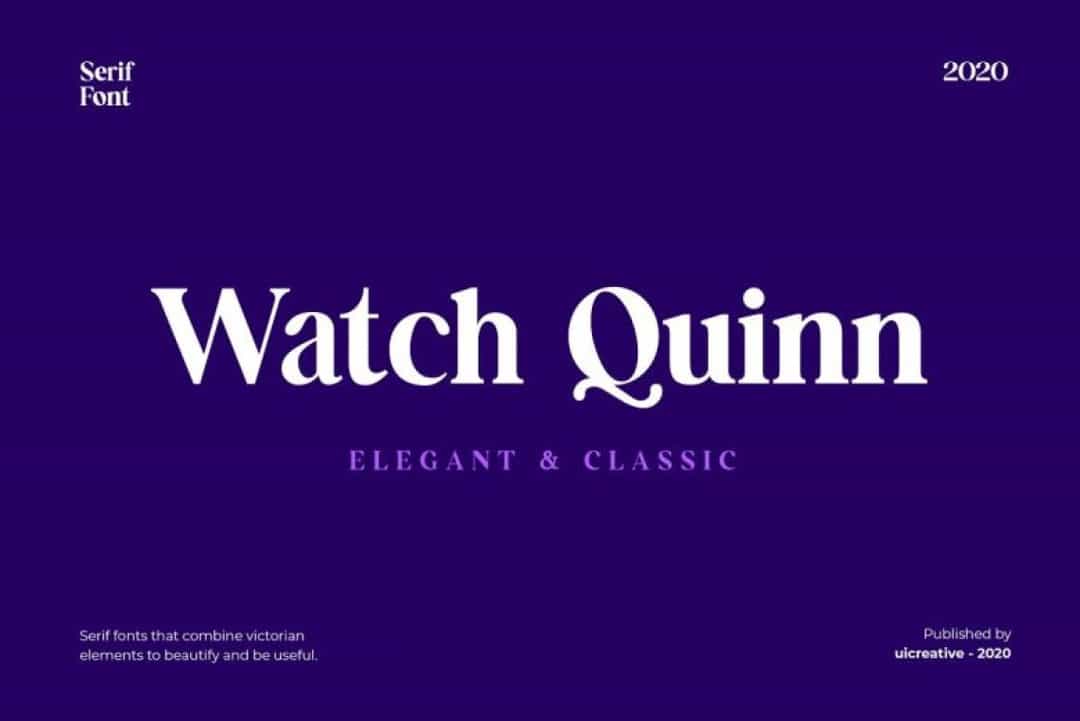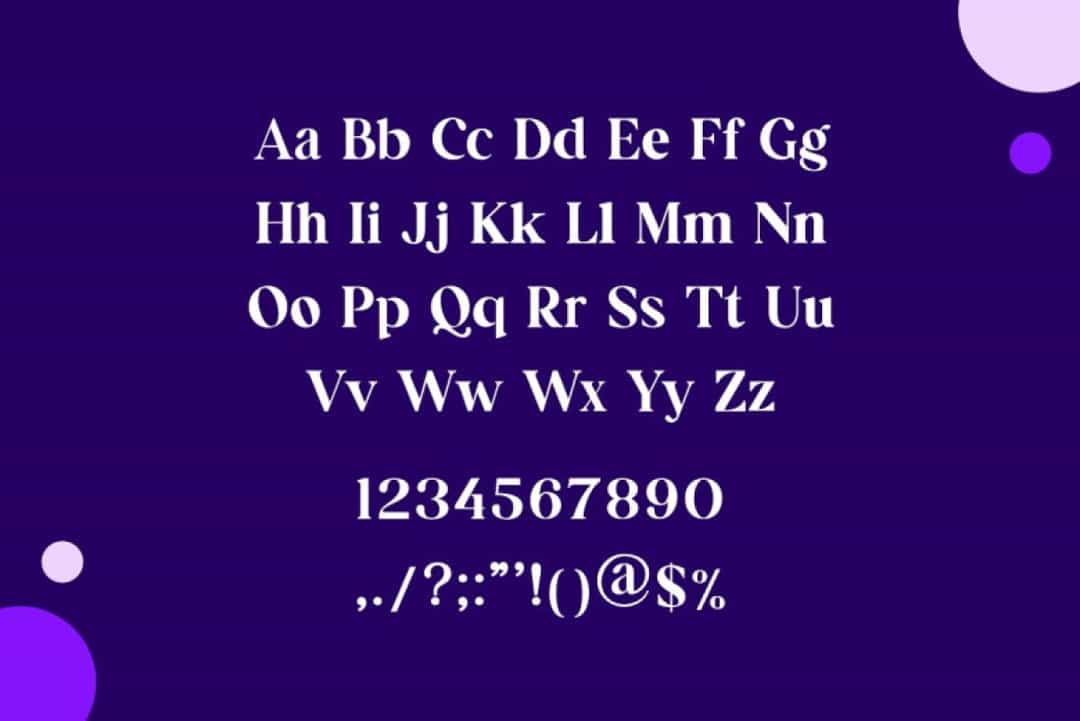
Watch Quinn is an elegant, classy, and contemporary serif typeface perfect for various projects; such as logos, stationery, signature wedding invitations, typography quotes from magazines or book covers and headers for websites as well as branding initiatives for clothing packaging or branding clothing packaging or product labels.